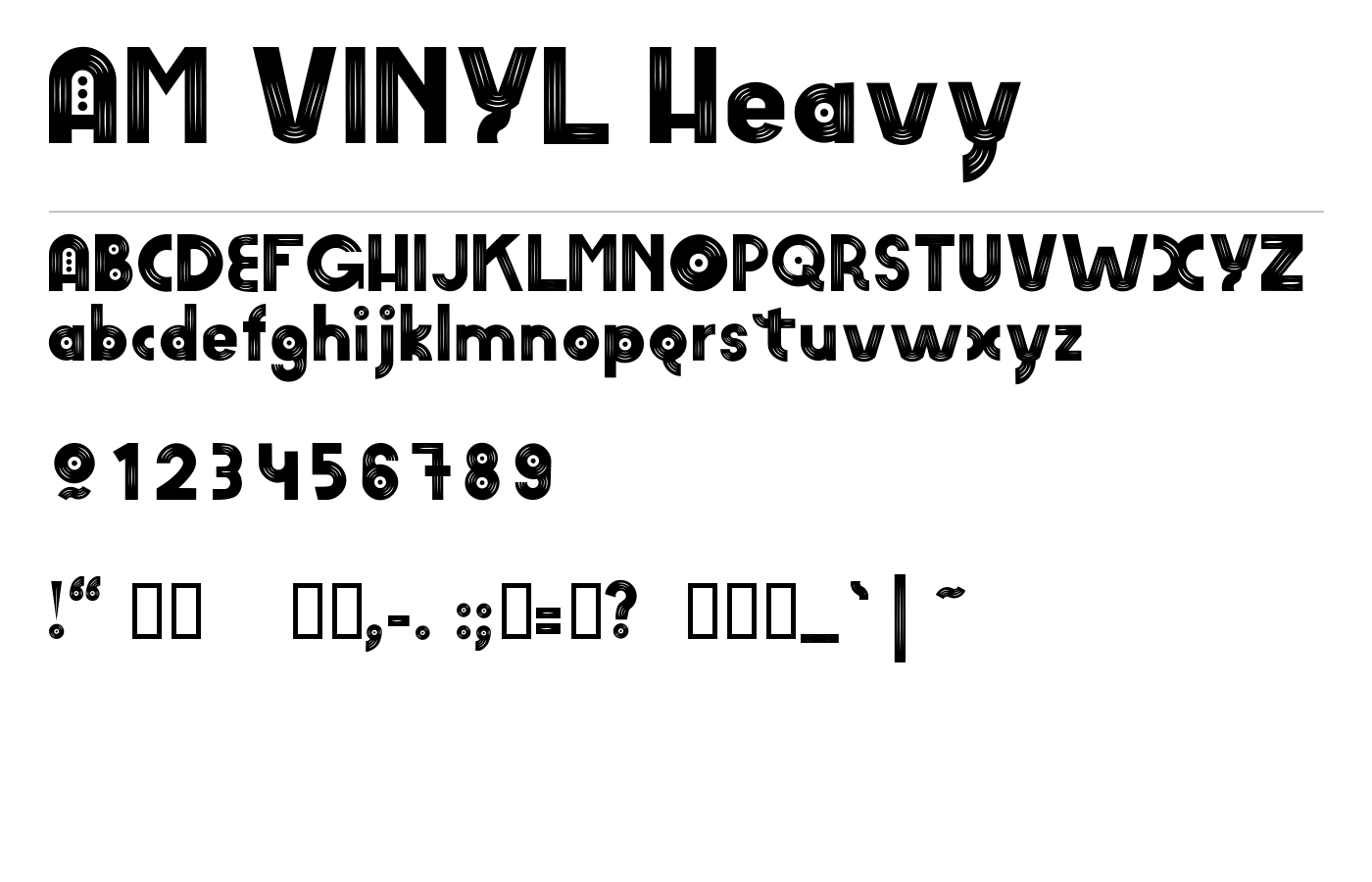
AM VINYL Heavy is a bold, playful display font with a unique layered design reminiscent of vinyl record grooves, featuring strong geometric shapes and rounded edges. Its high contrast stripes and quirky letterforms give it a retro yet modern vibe, making it ideal for eye-catching logos, posters, and creative branding that require a distinctive, energetic personality. This font works best in large sizes where its intricate details can shine, adding a fun and dynamic touch to any visual project.
AM VINYL Font
About AM VINYL Font
| Font family | AM VINYL Font |
| Designer | Breo Alamancos |